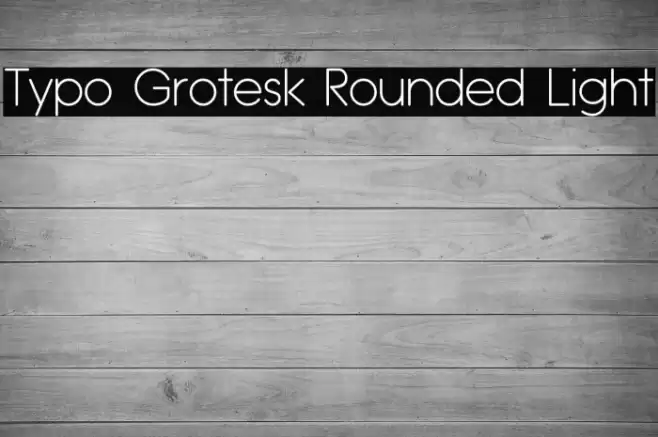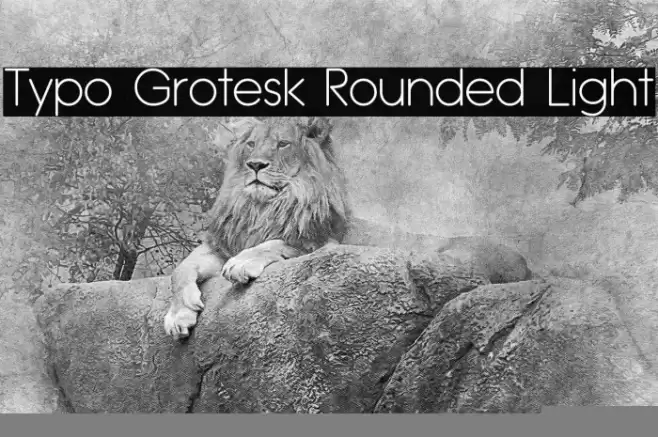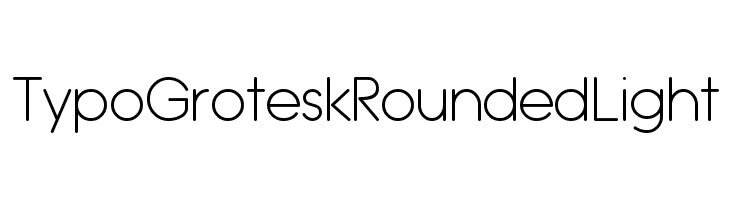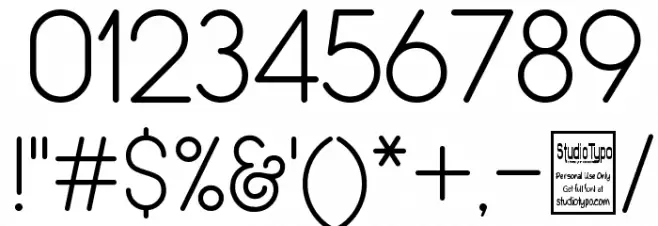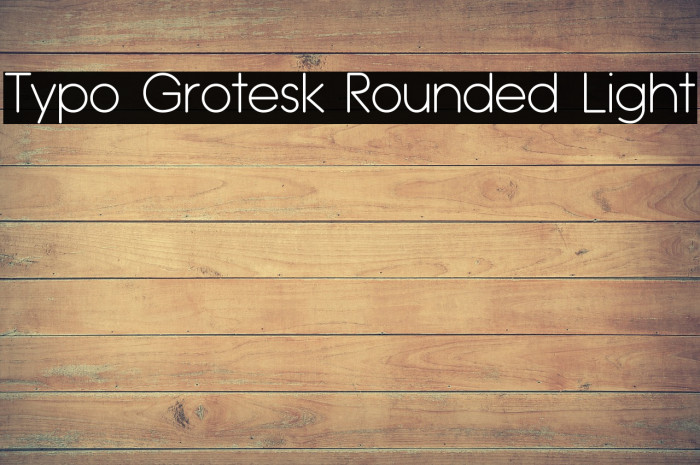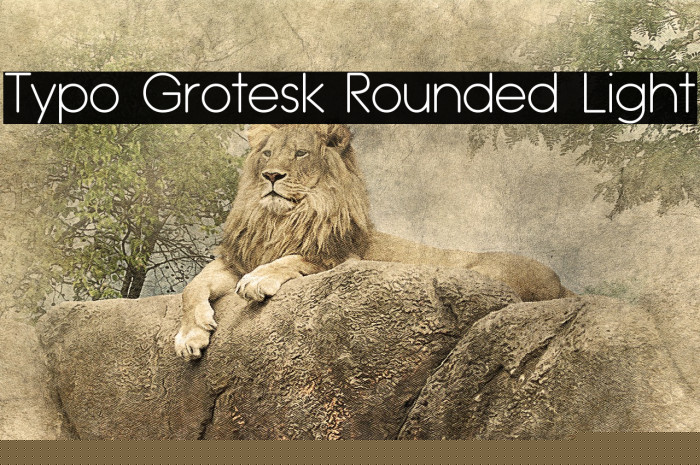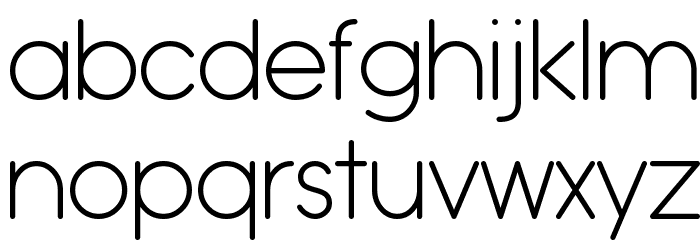
Typo Grotesk Rounded Light Font
Typo Grotesk Rounded Light Description
This font features a clean, modern design with rounded edges that give it a friendly and approachable feel. The characters are evenly spaced, maintaining a consistent flow that enhances readability. The uppercase and lowercase letters are well-proportioned, with a slight geometric influence that adds to its contemporary appeal. The numerals are clear and distinct, making them suitable for various applications. Special characters are included, maintaining the same rounded aesthetic. Overall, this font is versatile and can be used in a variety of design projects.
A modern, rounded font with a clean and approachable design from Basic fonts.